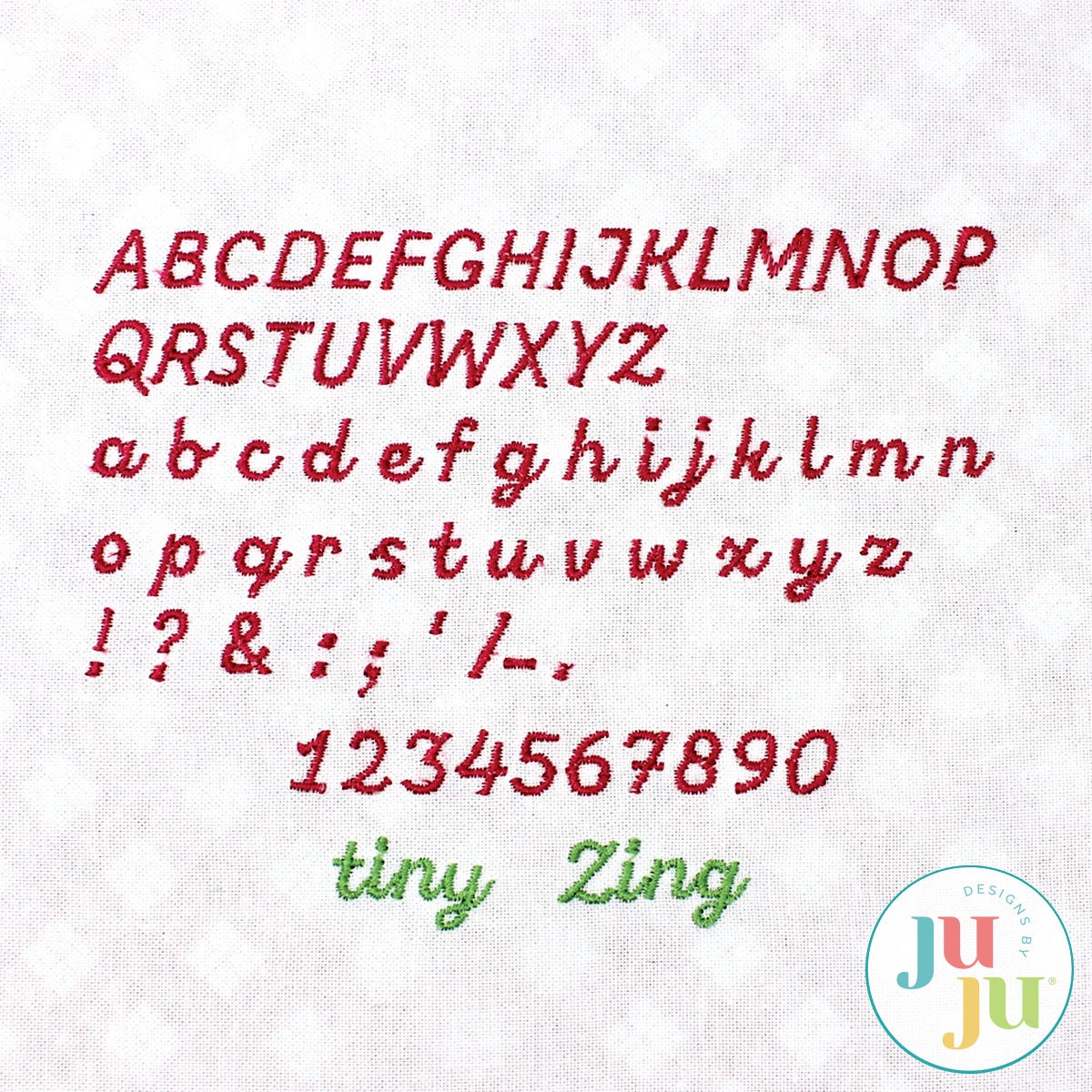
Zing Satin Stitch Embroidery Font by Oma's Place
This small font was entirely digitized manually to ensure perfect start and ending of each letter. Each letter starts on the left and ends on the right, closest to the next letter. The font was digitized specifically with 60 wt threads and 65/9 needles in mind. All capital letters of this font are block letters, all lower case script.
This makes the font very versatile. Use the capital letters for small monogram lettering. The font is perfect for wording on quilt labels.